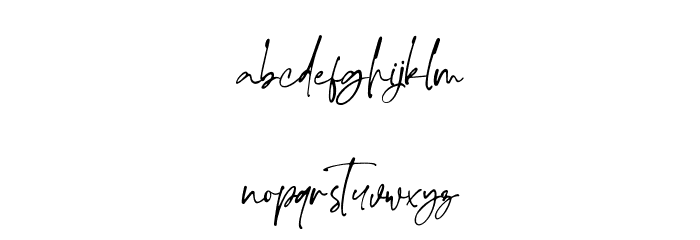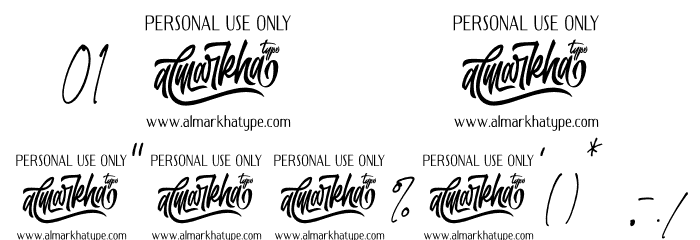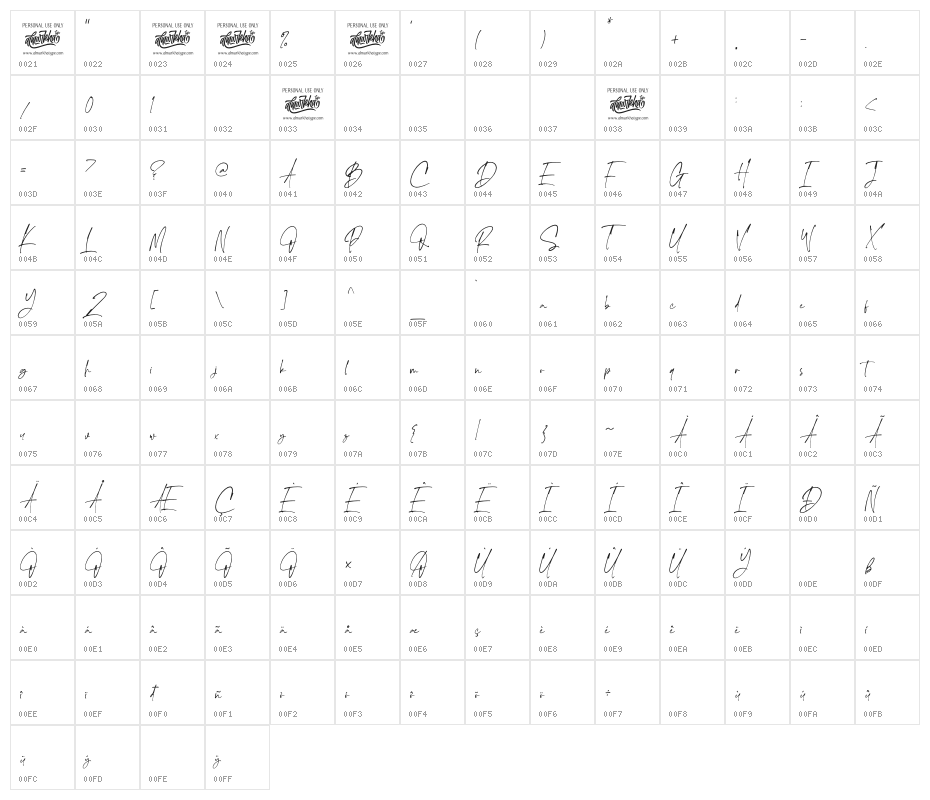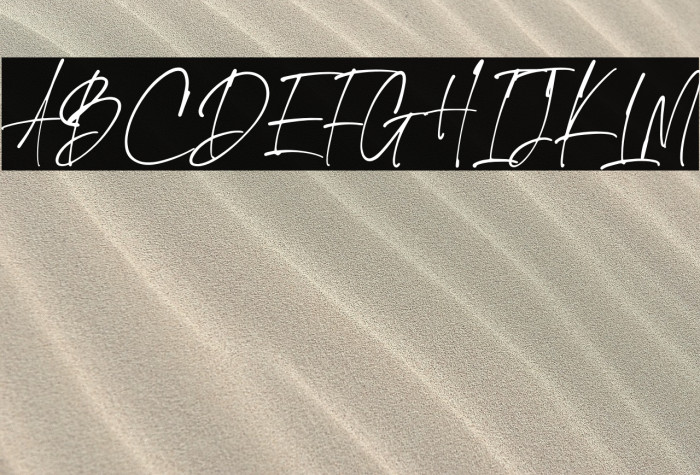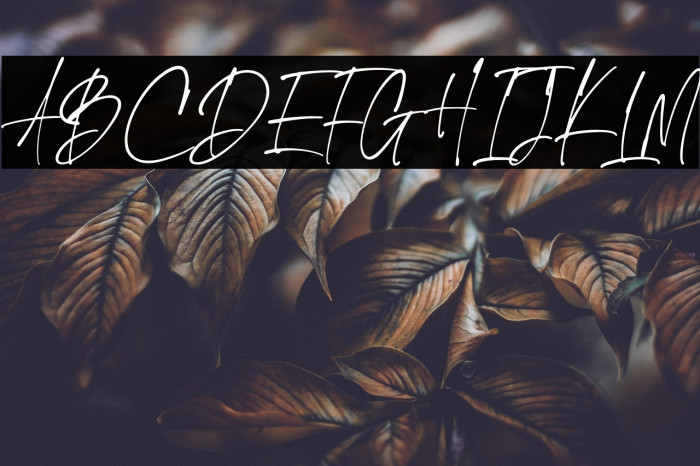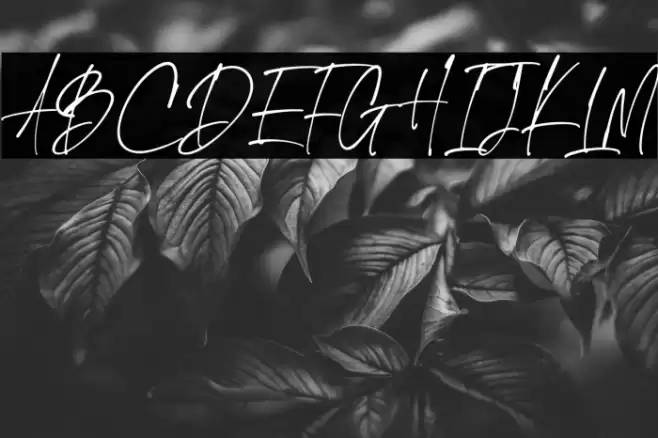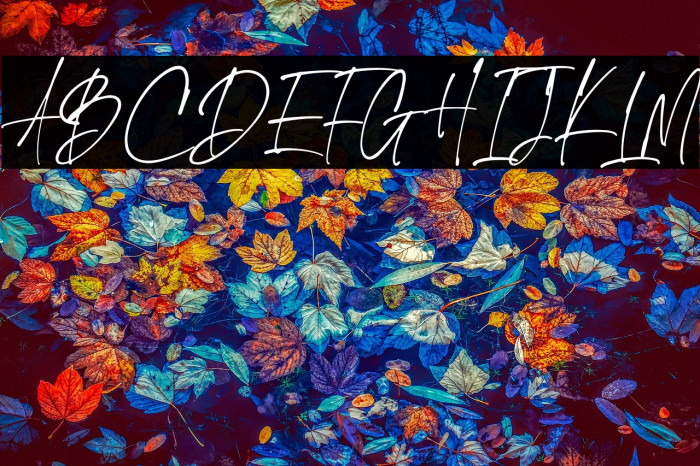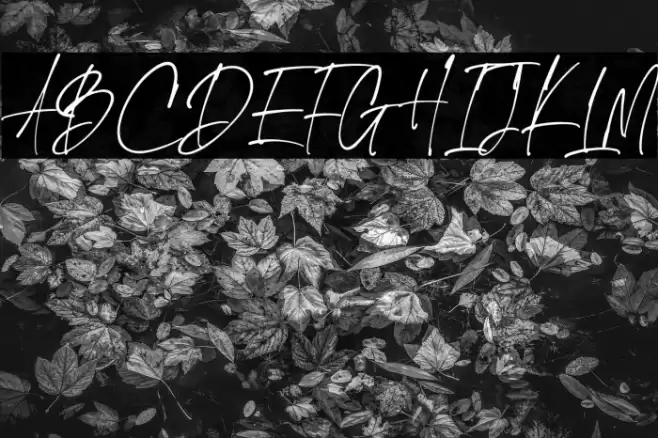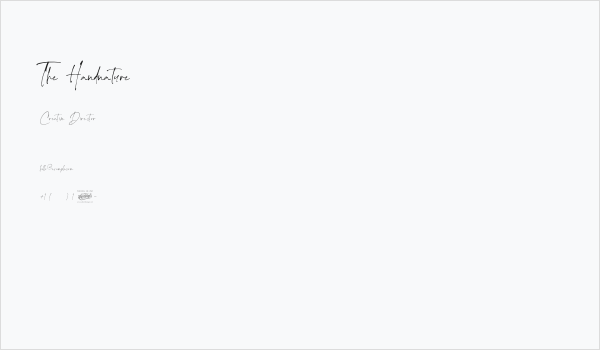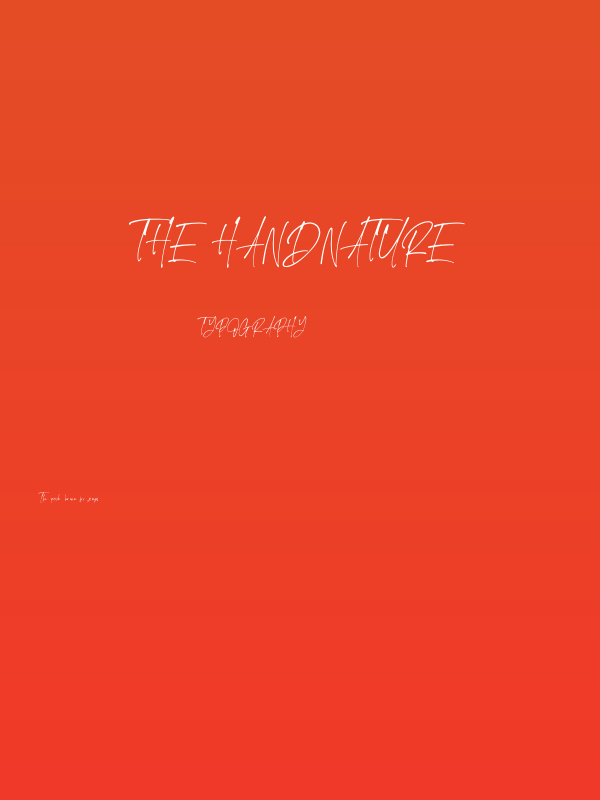
The Handnature Font
This font features a distinctive handwritten style with a fluid and dynamic appearance. The uppercase letters are bold and expressive, with elongated strokes and a slightly slanted orientation that gives them a sense of movement. The lowercase letters maintain a consistent flow, characterized by their cursive connections and elegant loops. The numerals and special characters complement the overall aesthetic, adding a playful yet sophisticated touch. This font's unique style makes it ideal for creative projects that require a personal and artistic flair.
A dynamic handwritten font with expressive, fluid strokes and cursive connections.
- Font: The Handnature
- Proposed Projects: Ideal for branding, invitations, greeting cards, and artistic designs that require a personal touch.
- Use Case: Logos, Invitations, Artistic projects